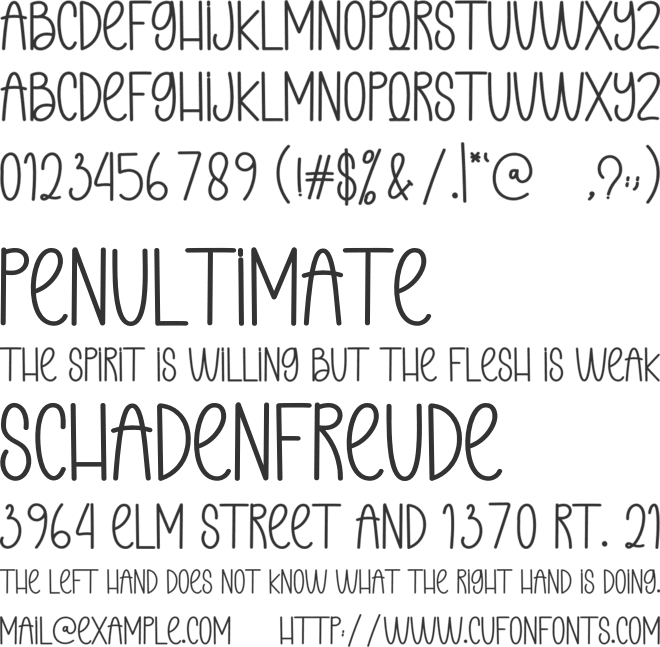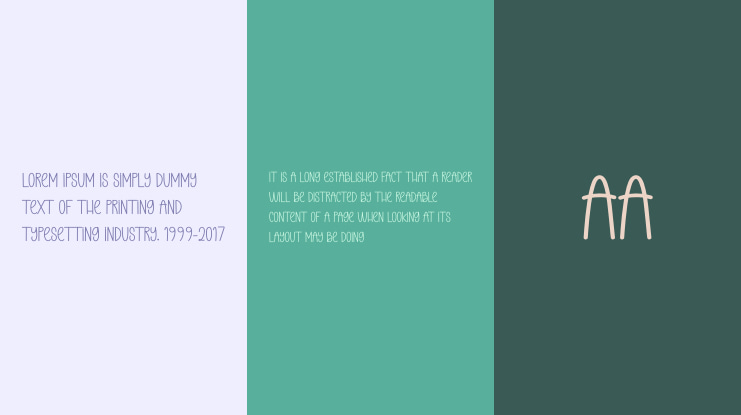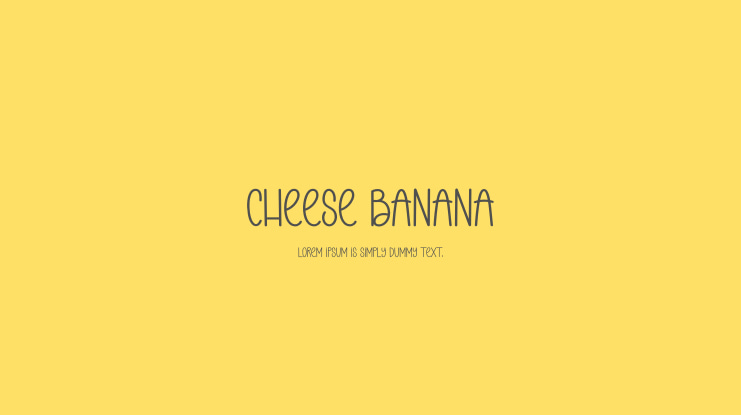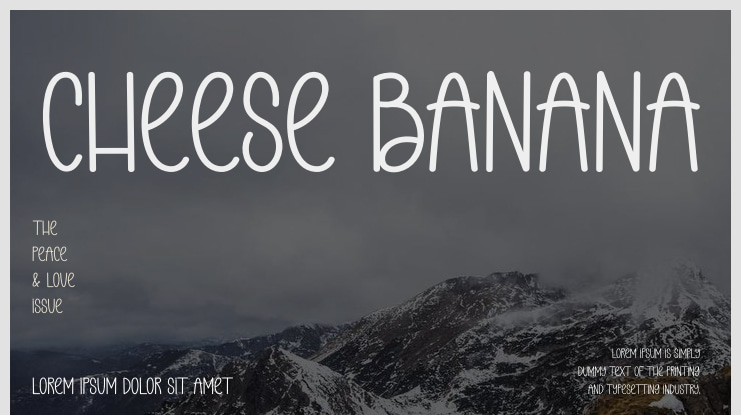
Our collection of contemporary letter styles is ideal for various purposes such as wall displays, wedding invitations, social media posts, logos, advertisements, product packaging, design projects, labels, photography, watermarks, invitations, stationery, and any project that demands elegant handwriting.